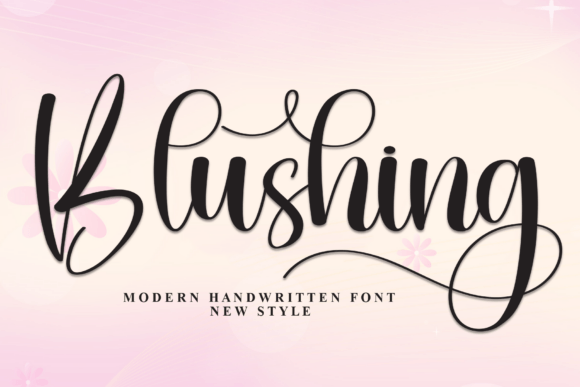
The Blushing Font: A Stylish and Expressive Addition to Your Design Toolbox
I’ll never forget the time I was working on a project for a client who wanted a font that was both elegant and playful. I had been searching for hours, but nothing seemed quite right. That’s when I stumbled upon the Blushing font. Its unique blend of bold and thin lines immediately caught my eye, and I knew I had found the perfect fit. In this article, I’ll share my experience with the Blushing font, including what I love about it, some potential quirks to consider, and practical tips on how to use it in your designs.
What I Love About Blushing Font
- ✨ Unique and stylish look: The Blushing font’s blend of bold and thin lines gives it a distinctive and eye-catching appearance.
- ✅ Personal and expressive: This font feels like it was written with a personal touch, making it perfect for projects where you want to convey a sense of personality.
- ✨ Elegant and refined: Despite its playful feel, the Blushing font also has an elegant side, making it suitable for a wide range of design projects.
While the Blushing font is incredibly versatile, there are a few things to keep in mind:
- 🤔 Legibility at small sizes: Like many handwritten fonts, the Blushing font can be a bit tricky to read at very small sizes. It’s best used at larger sizes where its unique characteristics can shine.
- ⚠️ Limited use in formal contexts: While the Blushing font is elegant, it’s still a handwritten font and may not be suitable for very formal or traditional designs.
The Blushing font was inspired by the elegant, handwritten scripts of the 19th century. Its designer wanted to create a font that captured the feel of traditional penmanship, while still being modern and stylish. The result is a font that’s both refined and playful, perfect for a wide range of design projects.
Q: What is the Blushing font?
A: The Blushing font is a handwritten font that blends bold and thin lines, giving it a unique and stylish look.
Q: Is the Blushing font suitable for formal designs?
A: While the Blushing font is elegant, it’s still a handwritten font and may not be suitable for very formal or traditional designs.